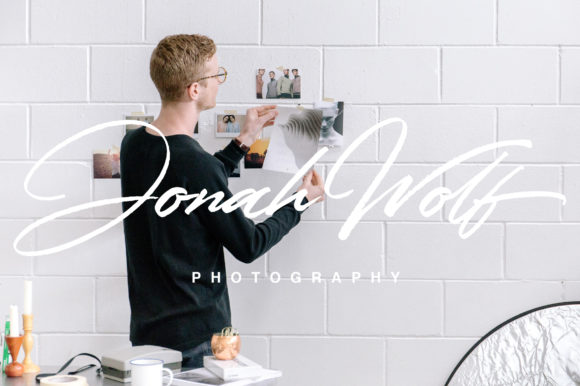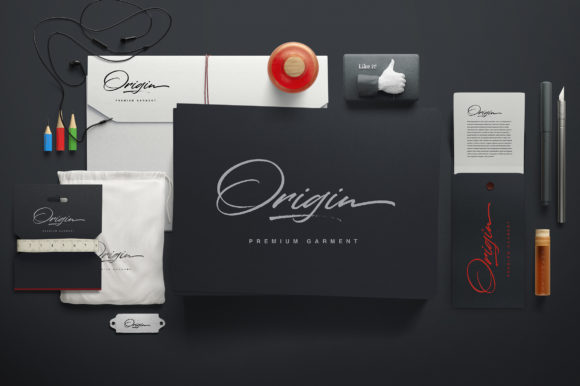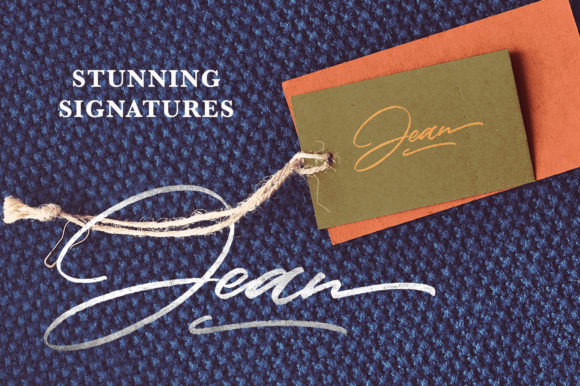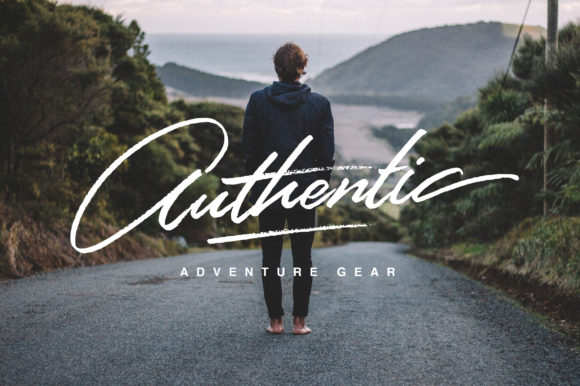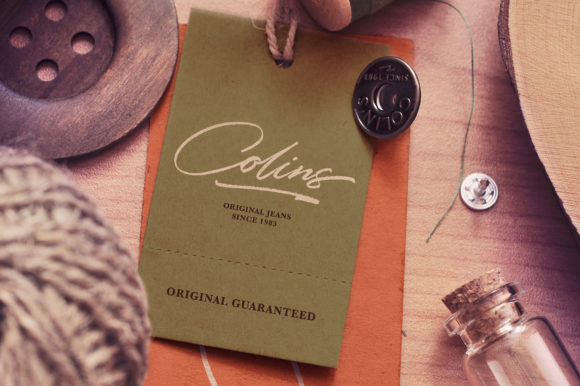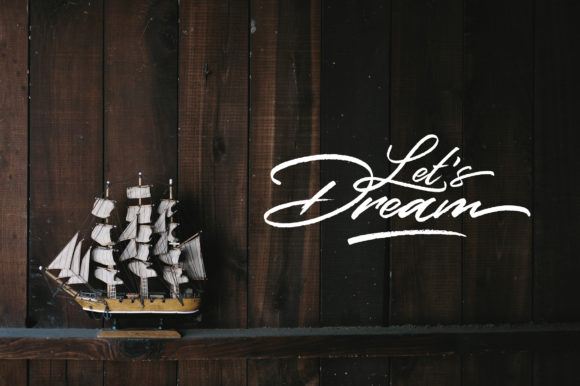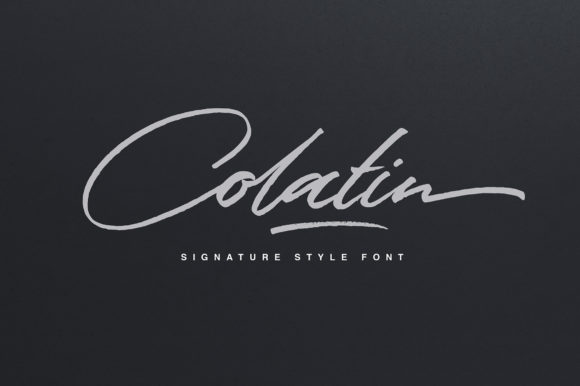
Introducing Colatin Script Font: The Epitome of Effortless Charm
Are you on the lookout for a font that exudes a cool, laid-back vibe? Look no further than Colatin Script Font, a carefully handmade script that is sure to inspire your next design project. With its unique blend of elegance and casual flair, Colatin is the perfect choice for designers and crafters seeking to add a touch of sophistication to their work.
The Story Behind Colatin Script Font
Colatin Script Font is a one-of-a-kind typeface that has been meticulously crafted to convey a sense of effortless charm. Its creator, a skilled typographer, drew inspiration from the fluid lines and curves of handwritten scripts to bring this beautiful font to life. The result is a font that is both stylish and approachable, making it perfect for a wide range of design applications.
Key Features of Colatin Script Font
So, what sets Colatin Script Font apart from other fonts in its class? Here are just a few of its key features:
• Handmade with love: Colatin Script Font is a genuine handmade script, carefully crafted to ensure that every letter and curve is unique and full of character.
• Cool and effortless: Colatin exudes a laid-back, cool vibe that is perfect for designs that require a touch of sophistication and elegance.
• Highly versatile: Whether you’re working on a logo, a poster, or a website, Colatin Script Font is the perfect choice for a wide range of design applications.
• Exceptional legibility: Despite its elegant, cursive lines, Colatin Script Font is remarkably legible, making it perfect for use in both digital and print designs.
Using Colatin Script Font in Your Designs
Colatin Script Font is an incredibly versatile typeface that can be used in a wide range of design applications. Here are just a few ideas to get you started:
• Logos and branding: Colatin Script Font is perfect for creating elegant, sophisticated logos that are sure to make your brand stand out.
• Posters and flyers: Add a touch of glamour to your posters and flyers with Colatin Script Font, which is sure to grab attention and leave a lasting impression.
• Web design: Colatin Script Font is a great choice for web designers seeking to add a touch of elegance to their website designs.
• Stationery and packaging: Use Colatin Script Font to create beautiful, eye-catching stationery and packaging that is sure to delight your customers.
Tips for Getting the Most Out of Colatin Script Font
To get the most out of Colatin Script Font, here are a few tips to keep in mind:
• Experiment with different sizes: Colatin Script Font looks great in a wide range of sizes, from large headings to smaller body text.
• Play with color: Colatin Script Font looks stunning in a wide range of colors, from bold and bright to soft and pastel.
• Mix and match: Don’t be afraid to mix and match Colatin Script Font with other fonts to create a unique, eye-catching design.
In conclusion, Colatin Script Font is a truly unique and special typeface that is sure to inspire your next design project. With its effortless charm, cool vibe, and exceptional legibility, Colatin is the perfect choice for designers and crafters seeking to add a touch of sophistication to their work. So why wait? Download Colatin Script Font today and discover the magic for yourself!